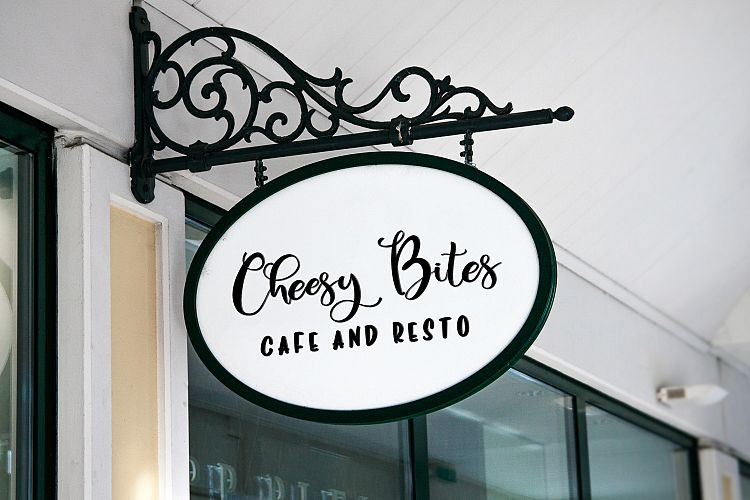
Deliciously Calligrapht Font
Deliciously Calligrapht Font is suitable for logos, branding projects, product packaging, quotes, greeting cards and all of your lovely projects. Deliciously Font Duo Set contains a full set of lowercase and uppercase letters; a large range of punctuation; numerals; multilingual support and many cute alternates.